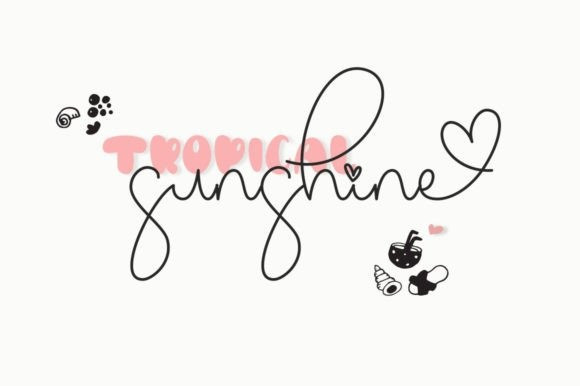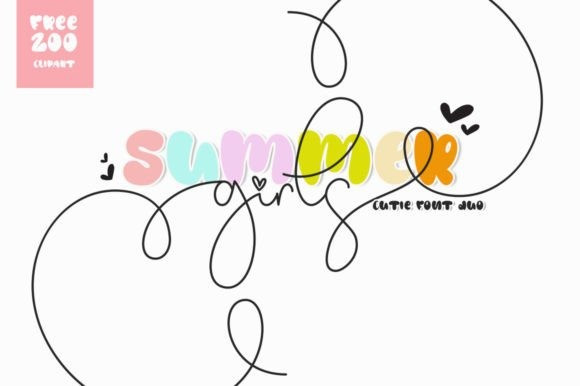
Girls Summer Font Duo
Girls Summer consists of two fonts (script and display) designed to complement each other perfectly. Together or apart, these fonts are ideal for adding a chic and cheery touch to your crafts. Girls Summer is PUA encoded which means you can access all glyphs and ligatures with ease!